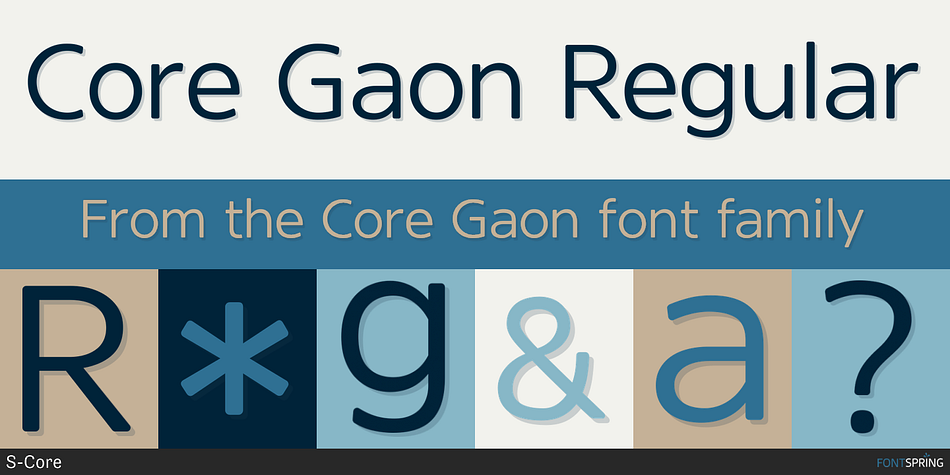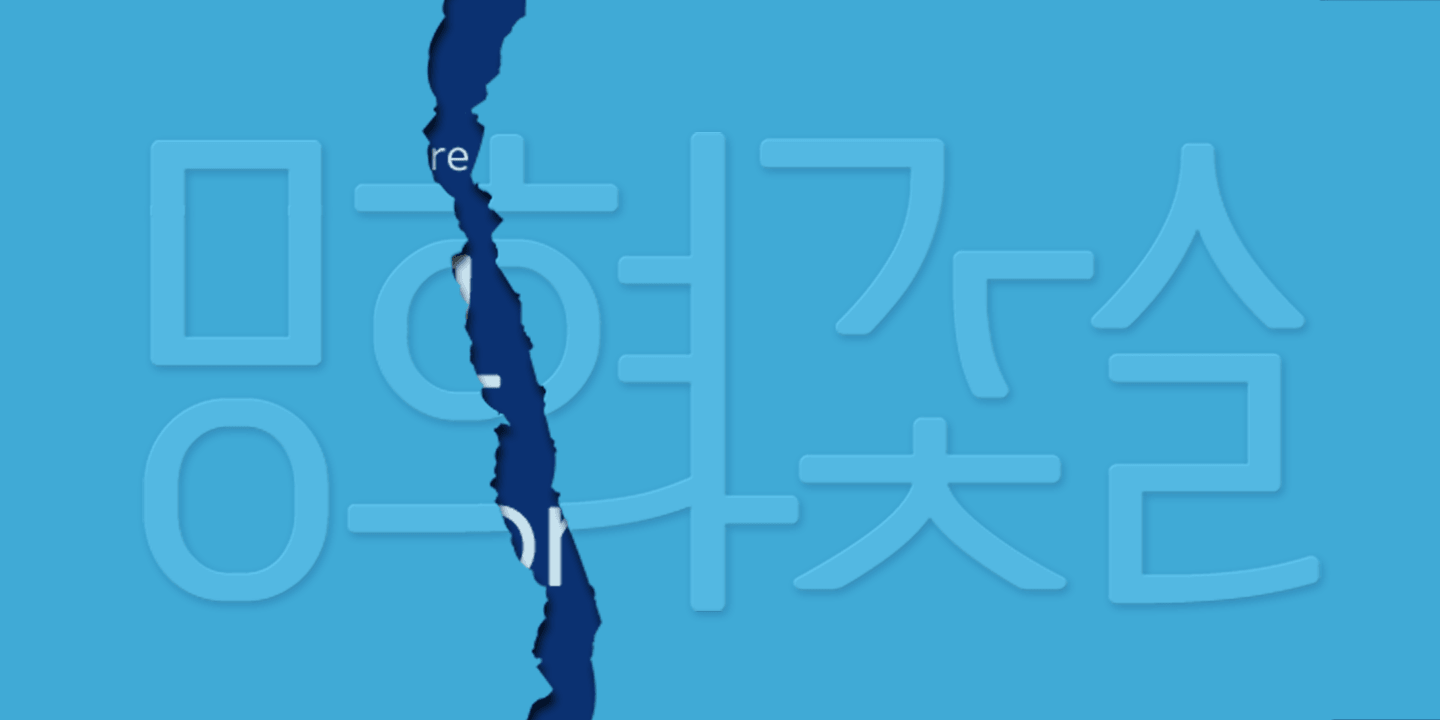
Core Gaon is a sans serif font published by S-Core.
Core Gaon is a modern sans-serif font. The main characteristics of the typeface are rounded edges of strokes and soft look & feel. Restrained angles of diagonal make text be in good order and it is helpful for legibility and readability. Supported codepages are MS Windows 1252 Latin1 and MS Windows 949 Korean consisting of 11,172 Korean letters and Symbols except Chinese. We suggest to use for books, magazines and posters.